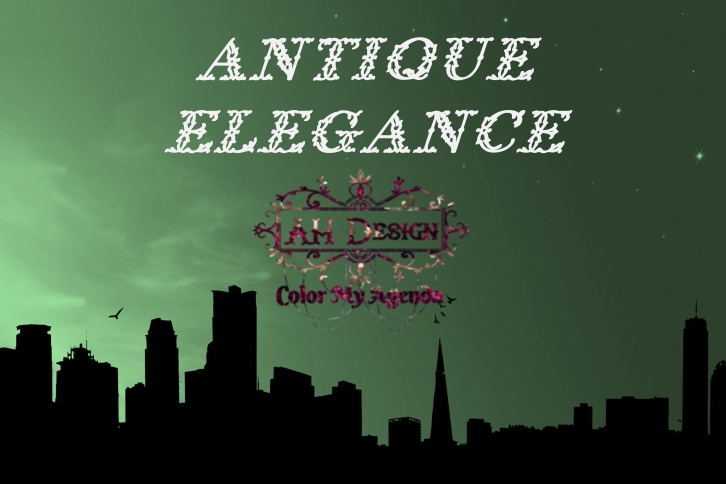
Aantique Elegance is a graceful and chic decorative font. Use it to add a joyful vibe to planners and journals, cards, invitations or just anything that requires an interesting touch.